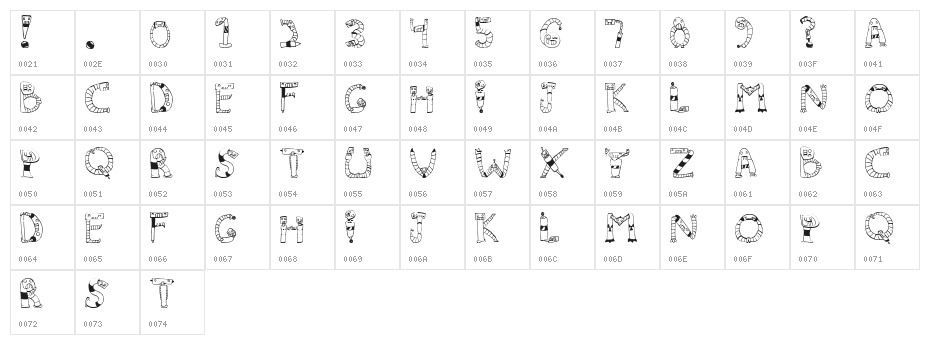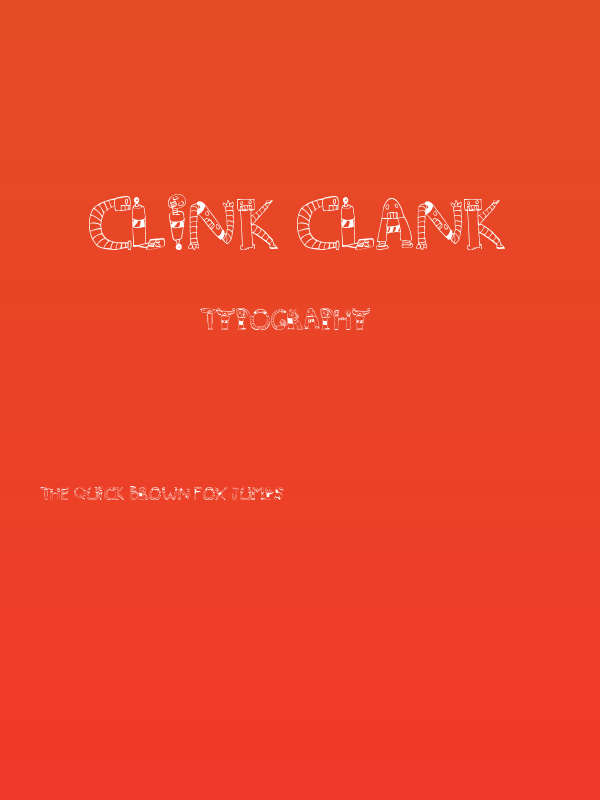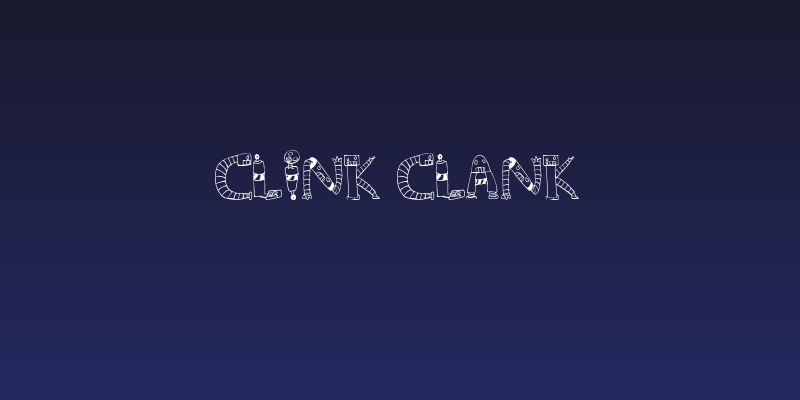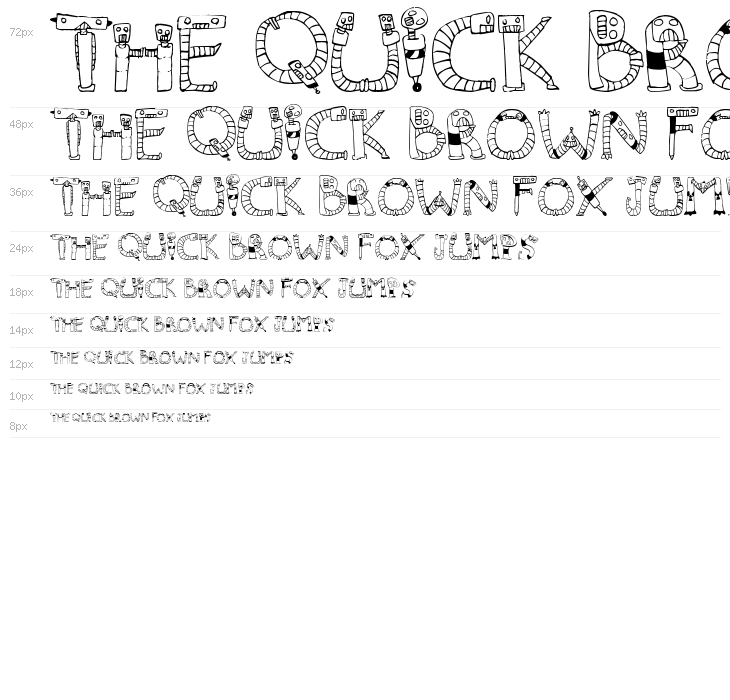
Clink Clank Font
Clink Clank Description
This font is a playful and whimsical design, featuring characters that resemble mechanical and robotic elements. Each letter and number is crafted with intricate details, such as gears, bolts, and pipes, giving it a unique, industrial look. The characters are bold and eye-catching, with a hand-drawn quality that adds to their charm. The special characters are creatively integrated into the theme, maintaining the same mechanical aesthetic. This font stands out with its imaginative and artistic style, perfect for projects that require a fun and inventive touch.